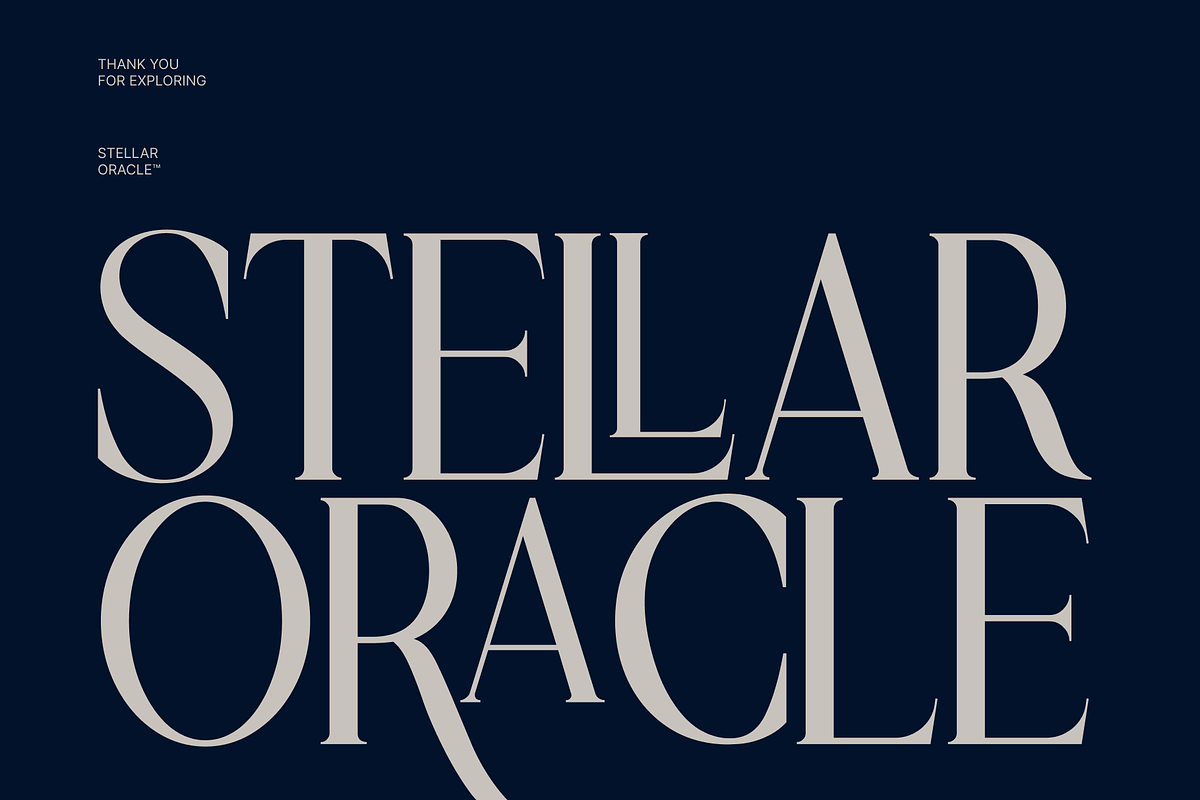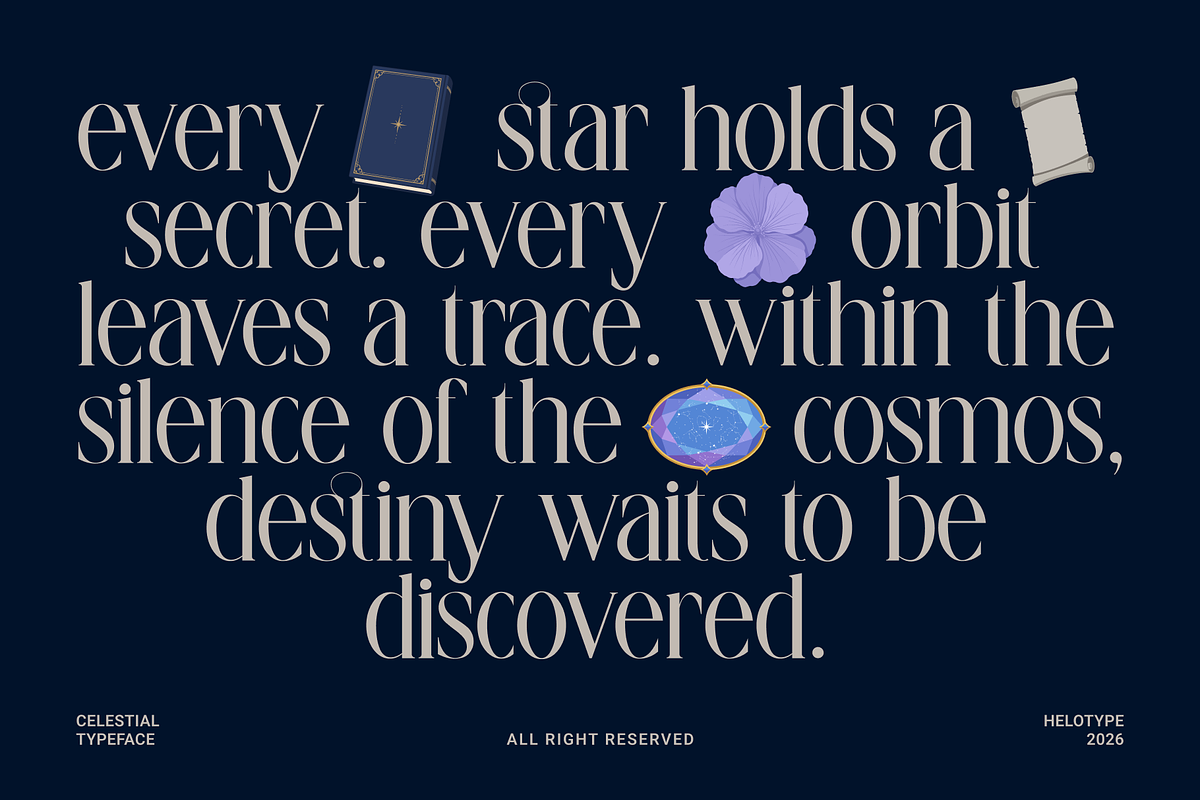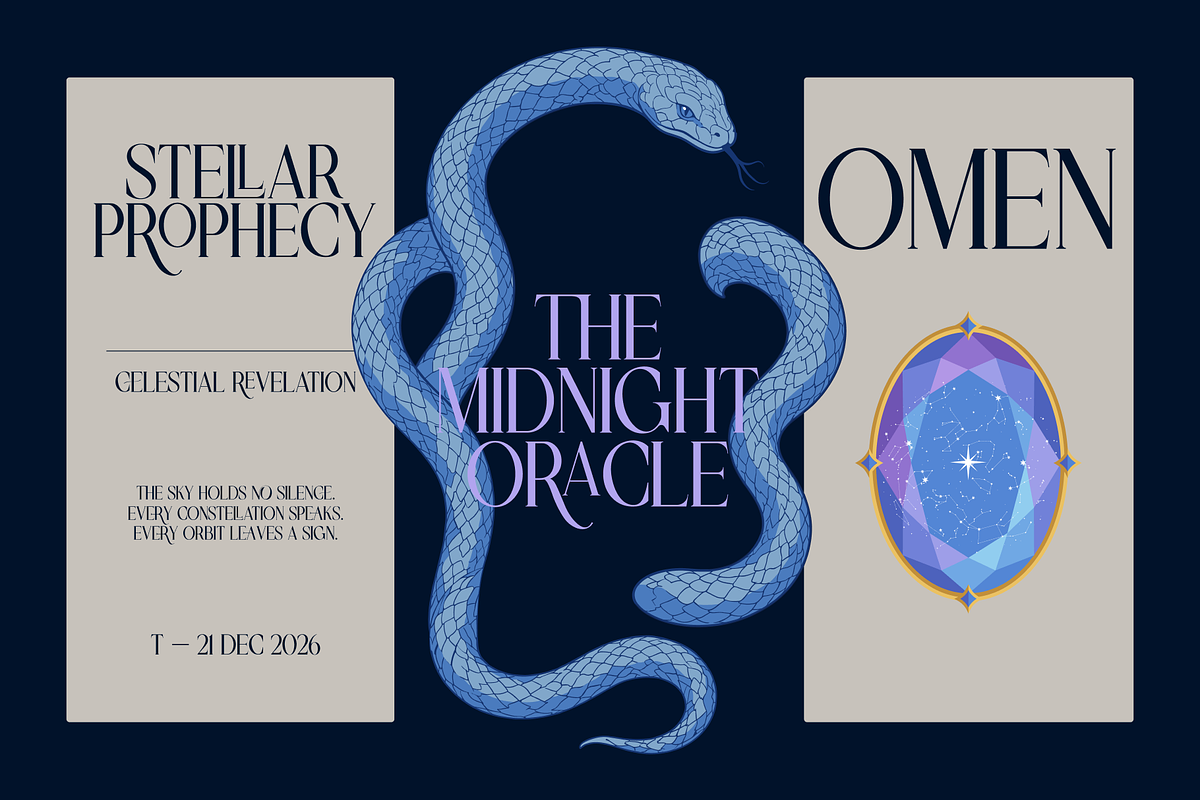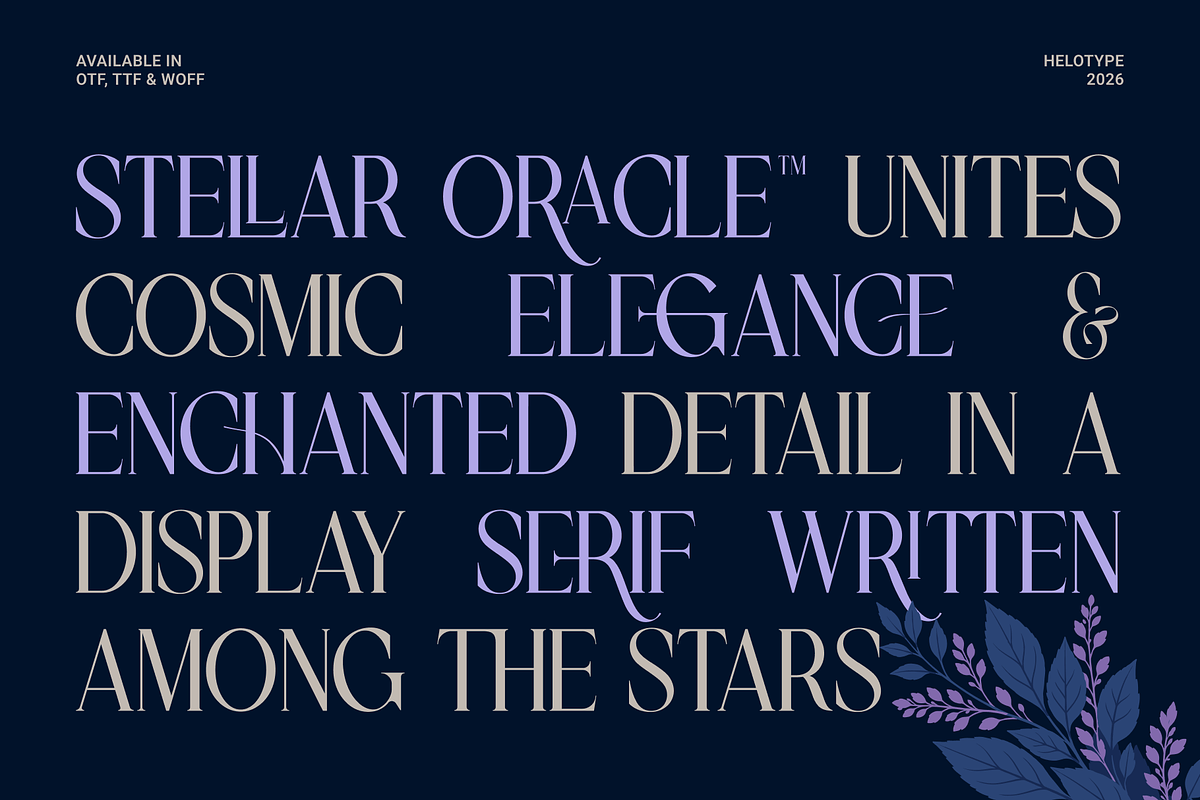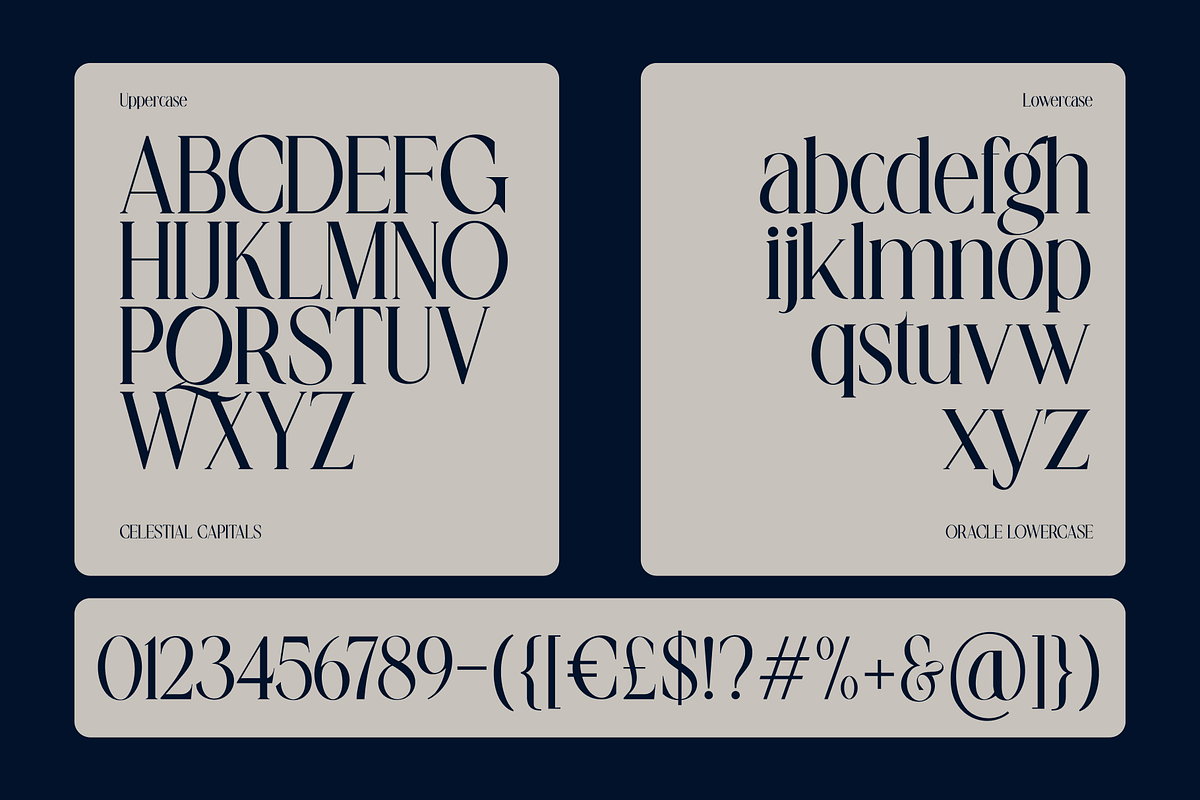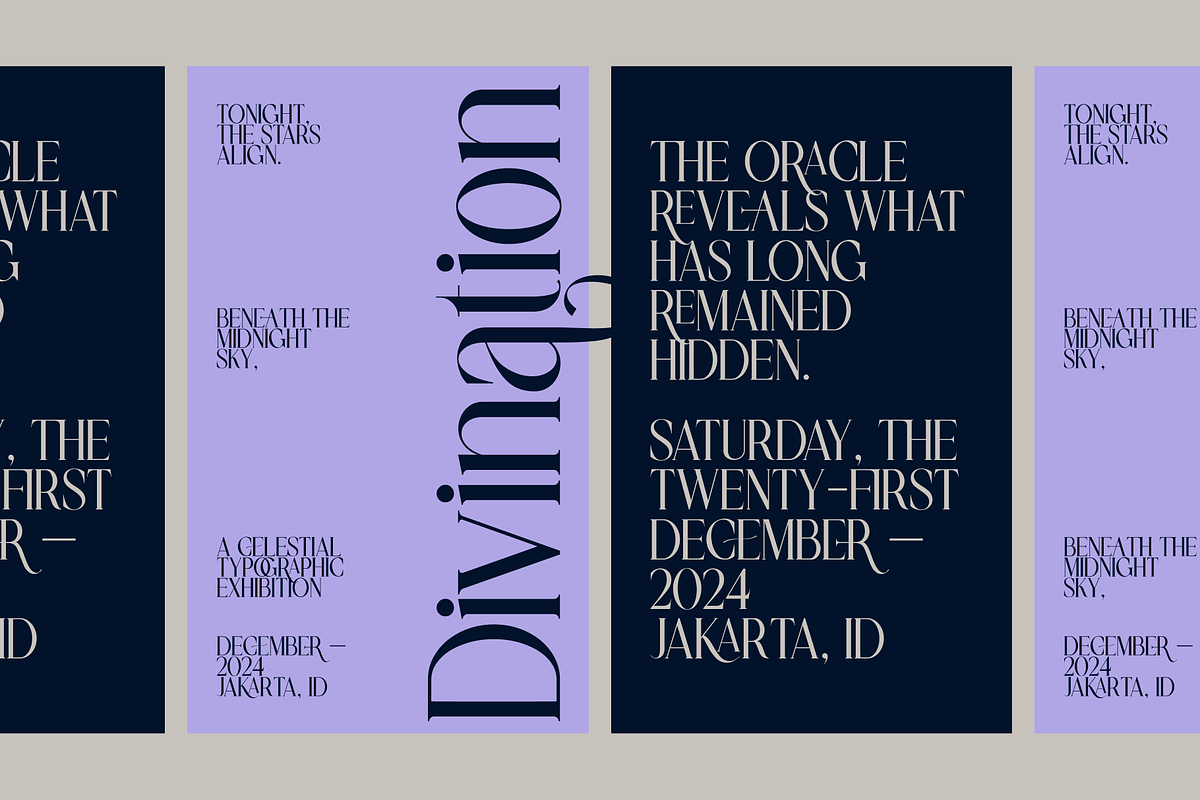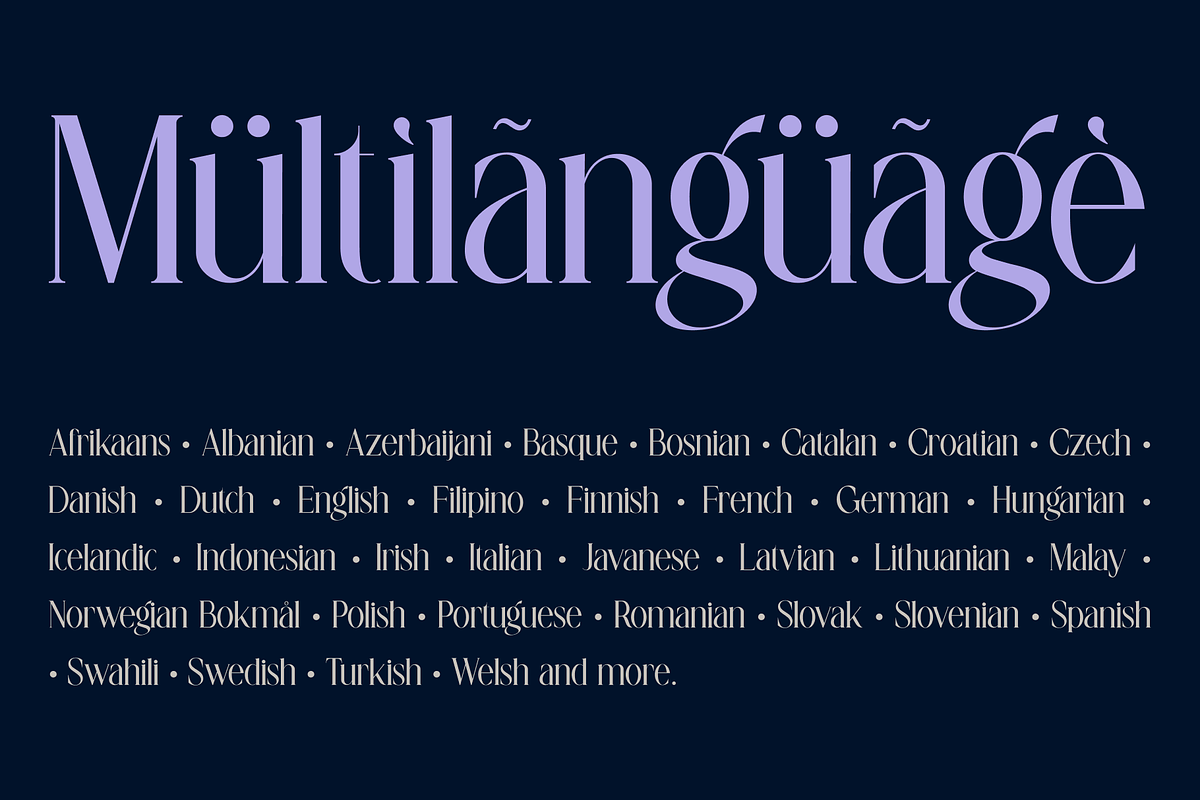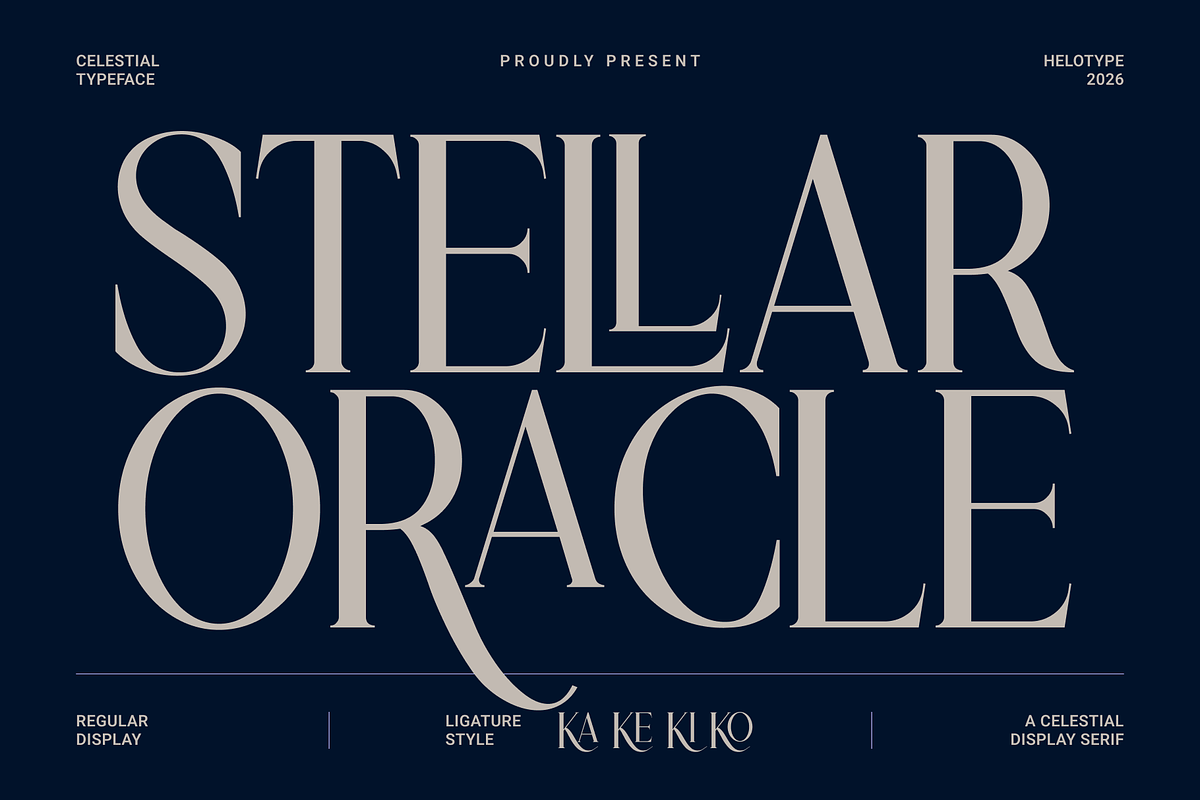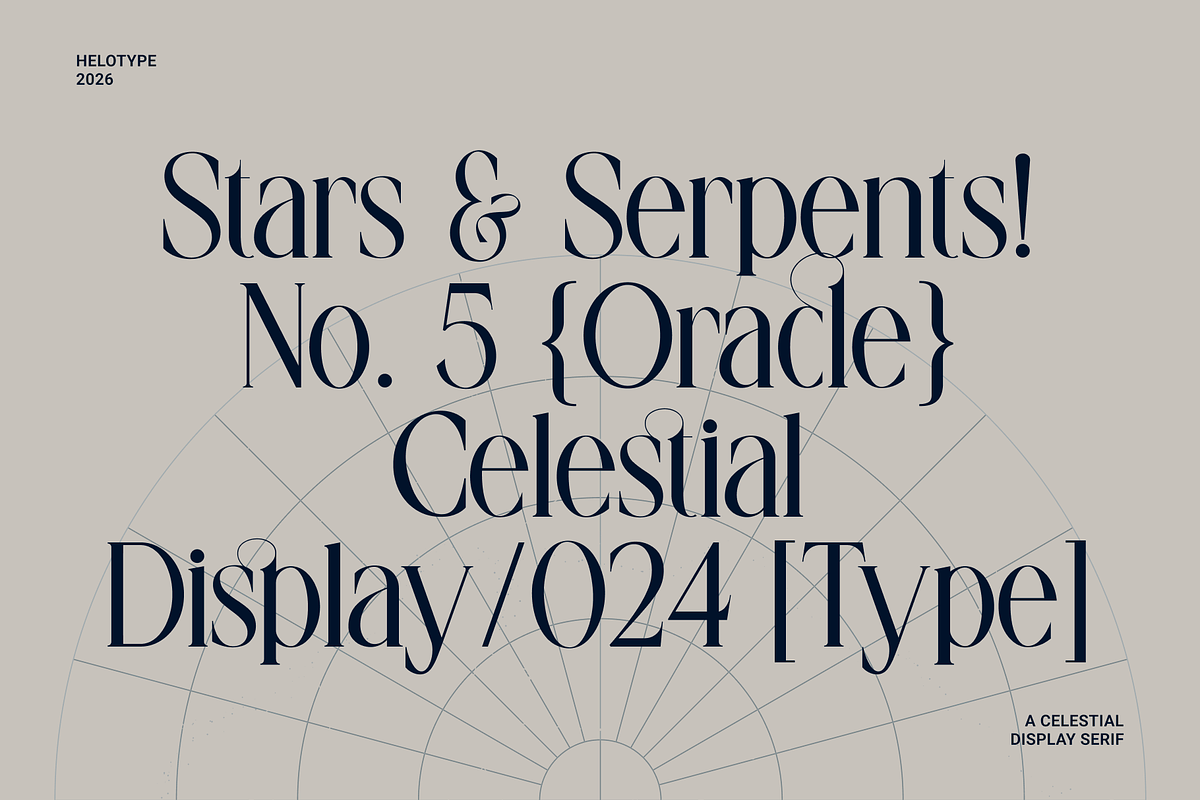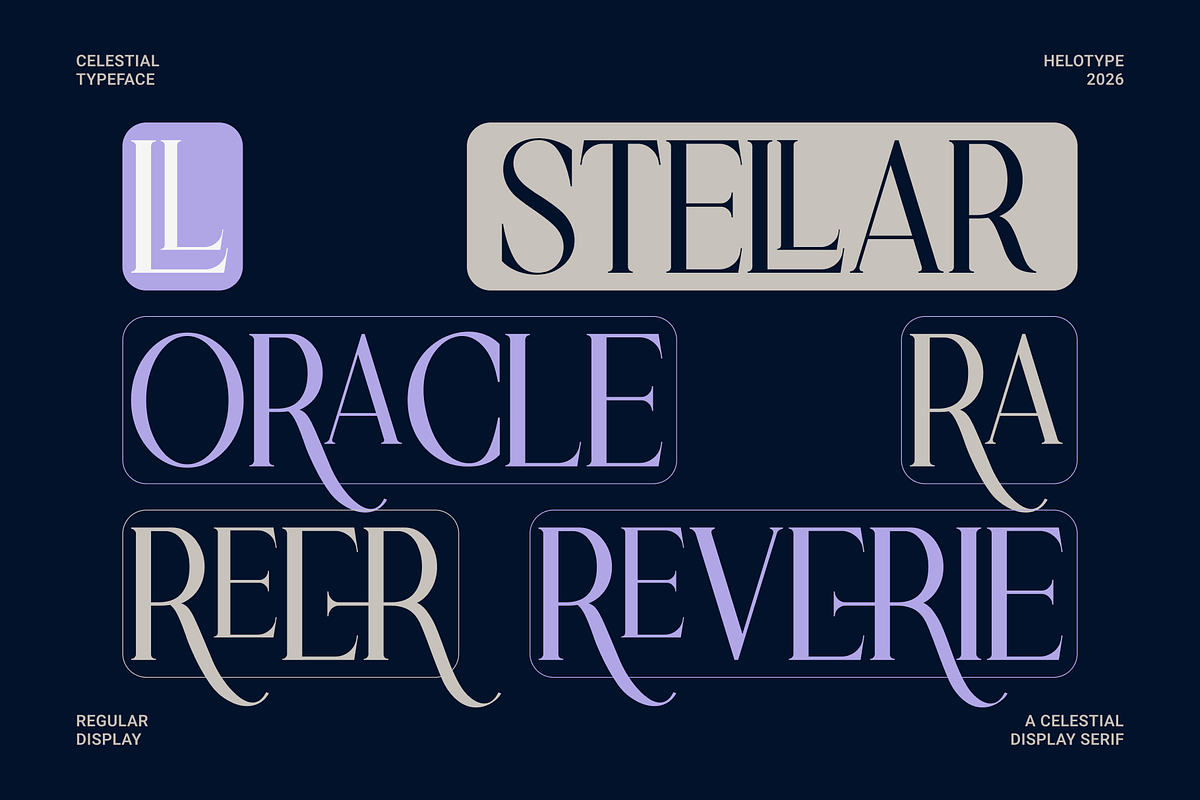
Stellar Oracle — Celestial Display
Stellar Oracle is a stunning, high-contrast celestial display serif font that unites cosmic elegance with enchanted detail. Designed for creators seeking a mystical, luxurious, and magical aesthetic, this typeface brings an otherworldly charm to branding, editorial design, packaging, and book covers.
ligature and alternates feature
Stellar Oracle is versatile enough for high-end fashion, tarot branding, cosmetics, and striking headline displays. Elevate your creative projects with a font written among the stars.